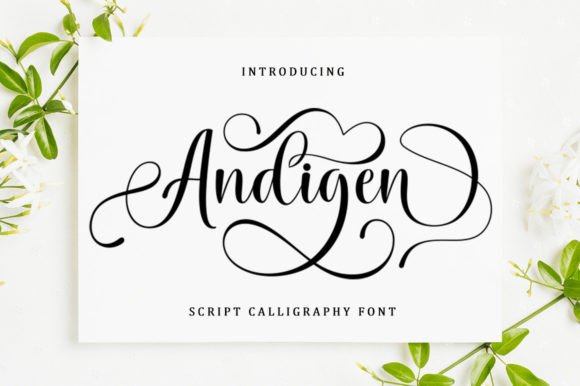
The Magic of Andigen Font: Elevate Your Designs with Elegance
I’ll never forget the moment I stumbled upon the perfect font for a project that had been lingering in my design queue for weeks. I was working on a branding campaign for a luxury boutique, and the client was specific about wanting a font that exuded elegance and sophistication. As I scrolled through my font library, I chanced upon Andigen Font, and it was love at first sight! 💫 In this article, I’ll share with you why Andigen Font has become a staple in my design toolkit and how you can make the most of its beautiful features.
An Honest Review of Andigen Font
What I Love About Andigen Font
- ✨ Elegant and flowing script: Andigen Font boasts an incredibly distinct and timeless style that adds a touch of luxury to any design project.
- ✅ Versatile and adaptable: Whether you’re working on a branding campaign, a wedding invitation, or a packaging design, Andigen Font seamlessly adapts to your creative vision.
- 💫 Distinctive character: The font’s unique personality shines through in its elegant strokes and carefully crafted letterforms.
While Andigen Font is a stunning addition to any design project, there are a few things to keep in mind:
- 🤔 Legibility at smaller sizes: As with many script fonts, Andigen Font may lose some legibility when used at smaller sizes. Make sure to test it at different sizes to ensure it works for your specific project.
- ⚠️ Overuse of stylistic alternates: With great power comes great responsibility! Be mindful of overusing the font’s stylistic alternates, as it may start to look cluttered or inconsistent.
A Practical Guide to Using Andigen Font
The Story Behind Andigen Font
Andigen Font was designed by a talented team of typographers who sought to create a beautiful, elegant script font that would add a touch of sophistication to any design project. Inspired by classic calligraphy and modern digital design, Andigen Font is the perfect blend of traditional and contemporary styles.
| Font Name | Andigen Font |
| Author | Kartiny Type |
Q: What type of projects is Andigen Font best suited for?
A: Andigen Font is perfect for luxury branding, formal events, packaging design, and high-end marketing materials.